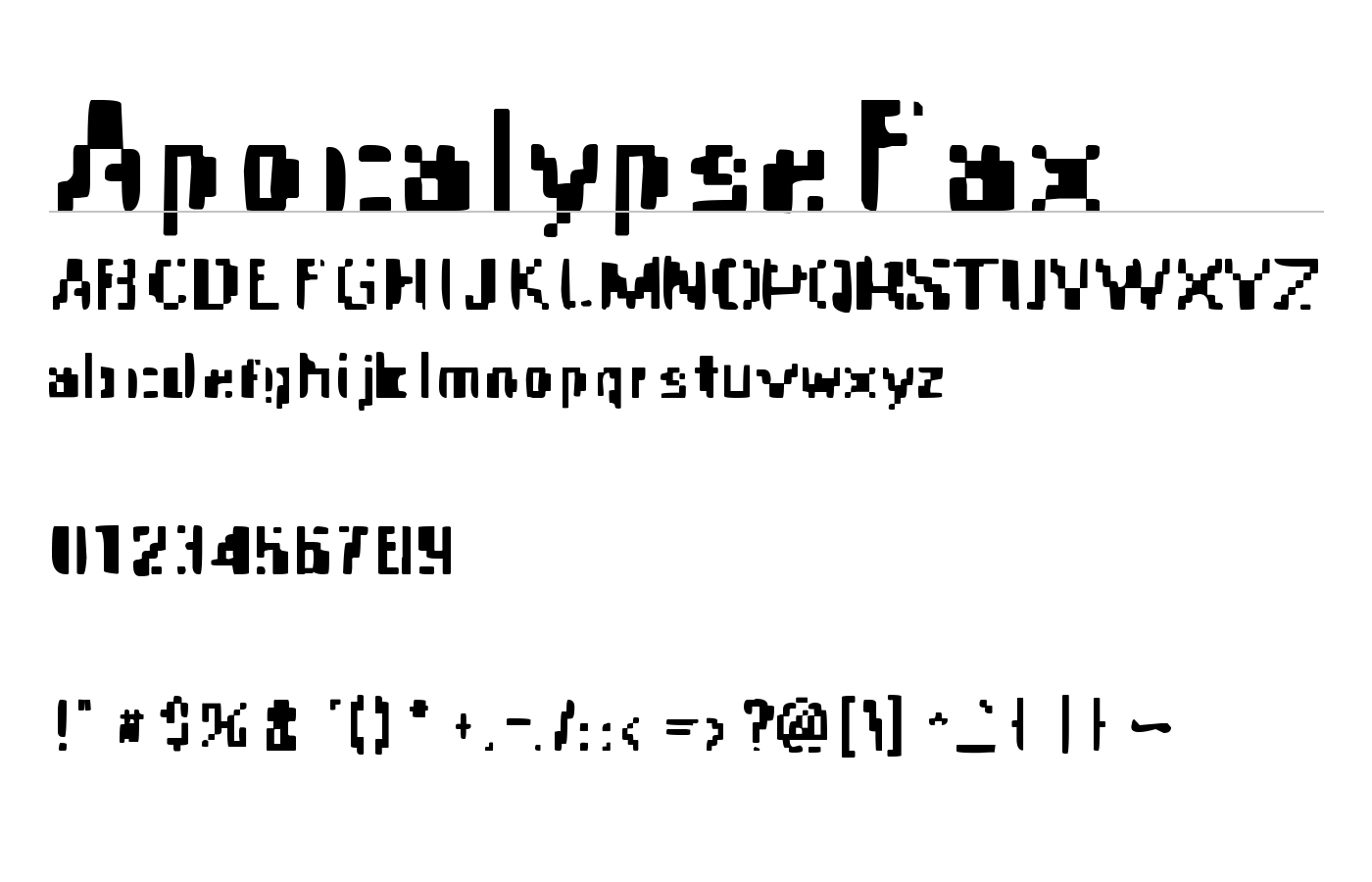
ApocalypseFax is a bold, condensed sans serif font with a pixelated, glitch-inspired design that conveys a futuristic and digital aesthetic. Its irregular, blocky letterforms create a sense of urgency and edge, making it ideal for sci-fi, cyberpunk, or technology-themed projects that want to stand out with a strong, modern personality. This font works best for headlines, logos, and posters where a distinctive, techy vibe is needed to capture attention.
ApocalypseFax Font
About ApocalypseFax Font
| Font family | ApocalypseFax Font |
| Designer | Kirk Shelton |